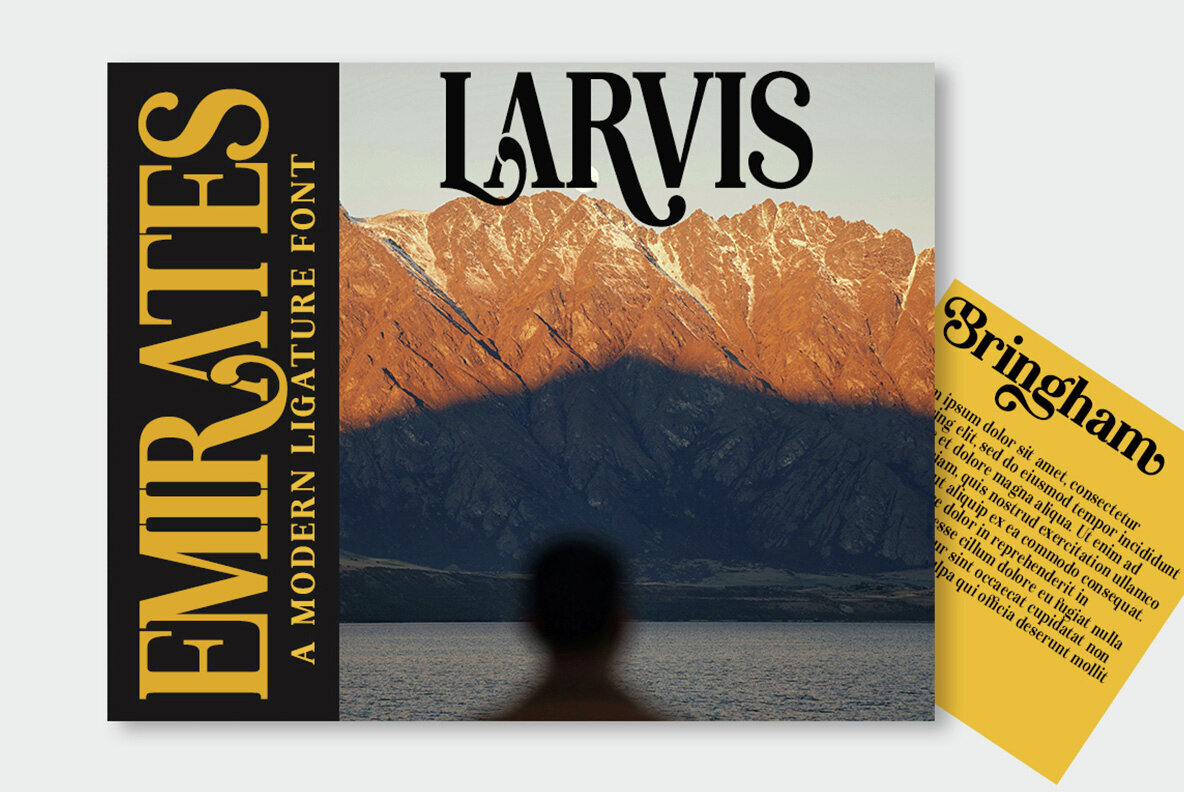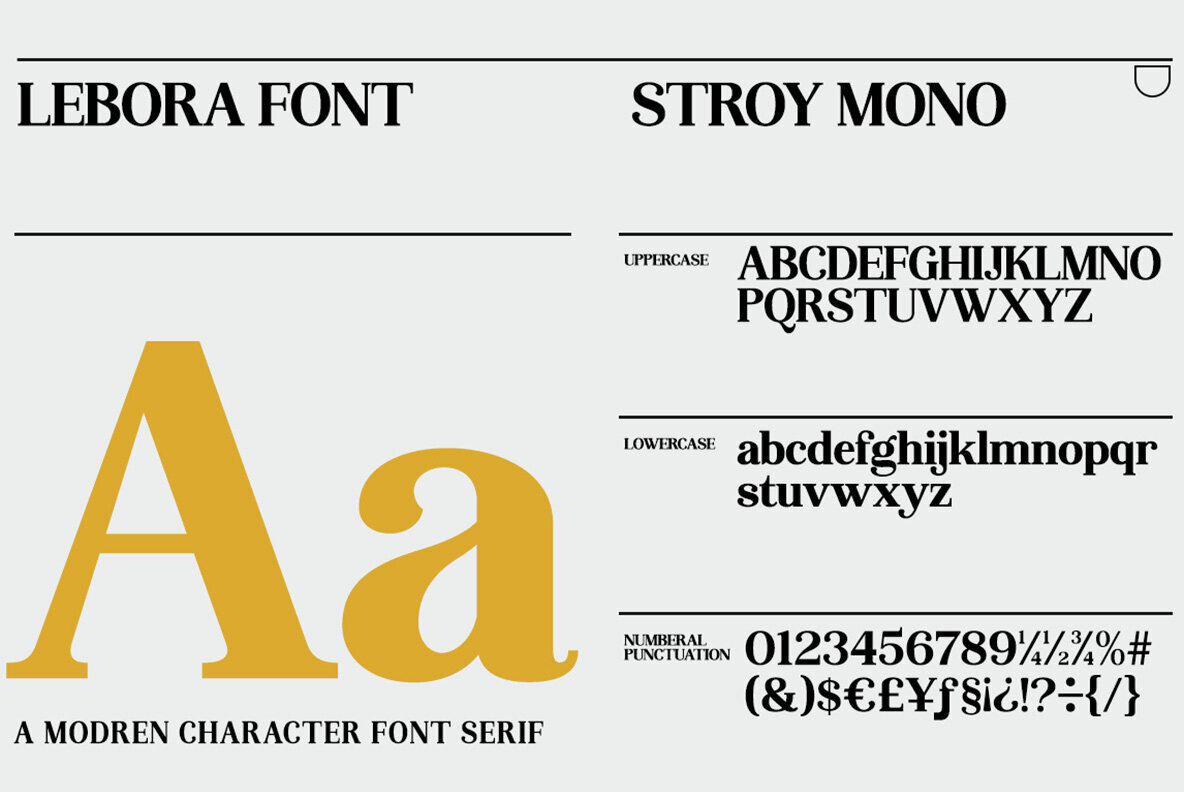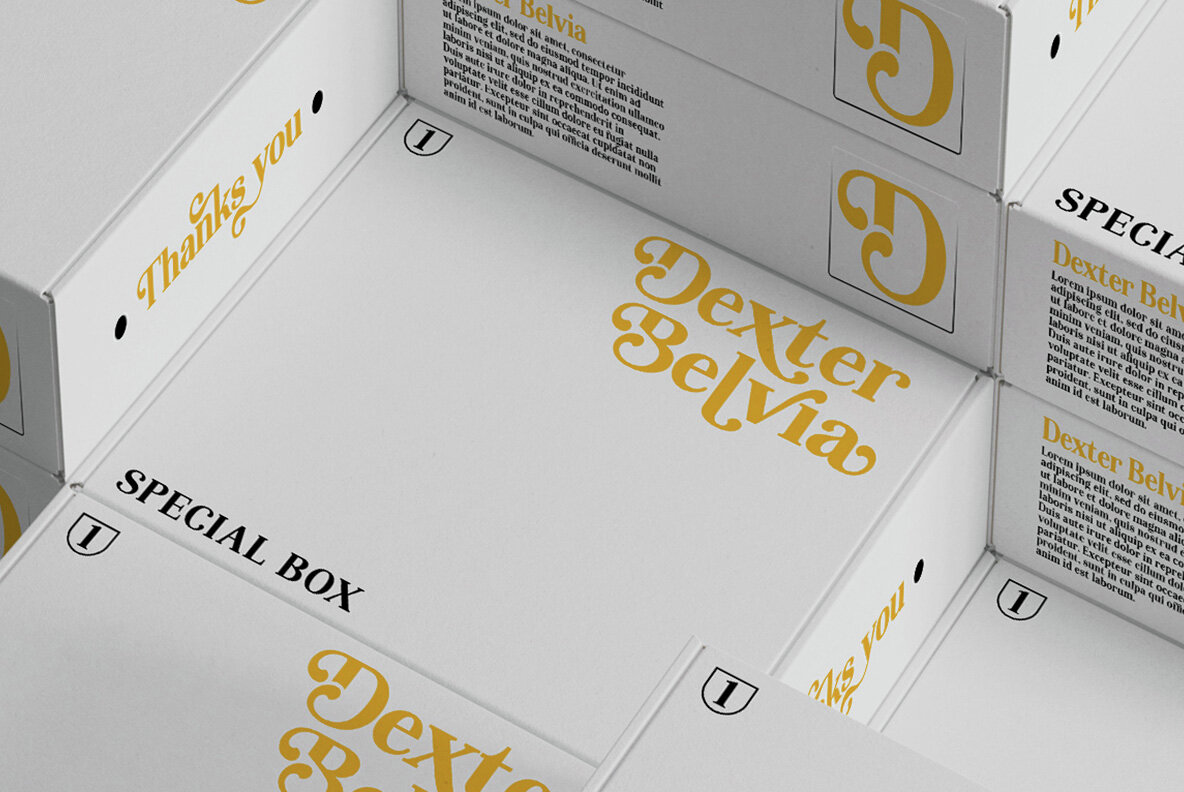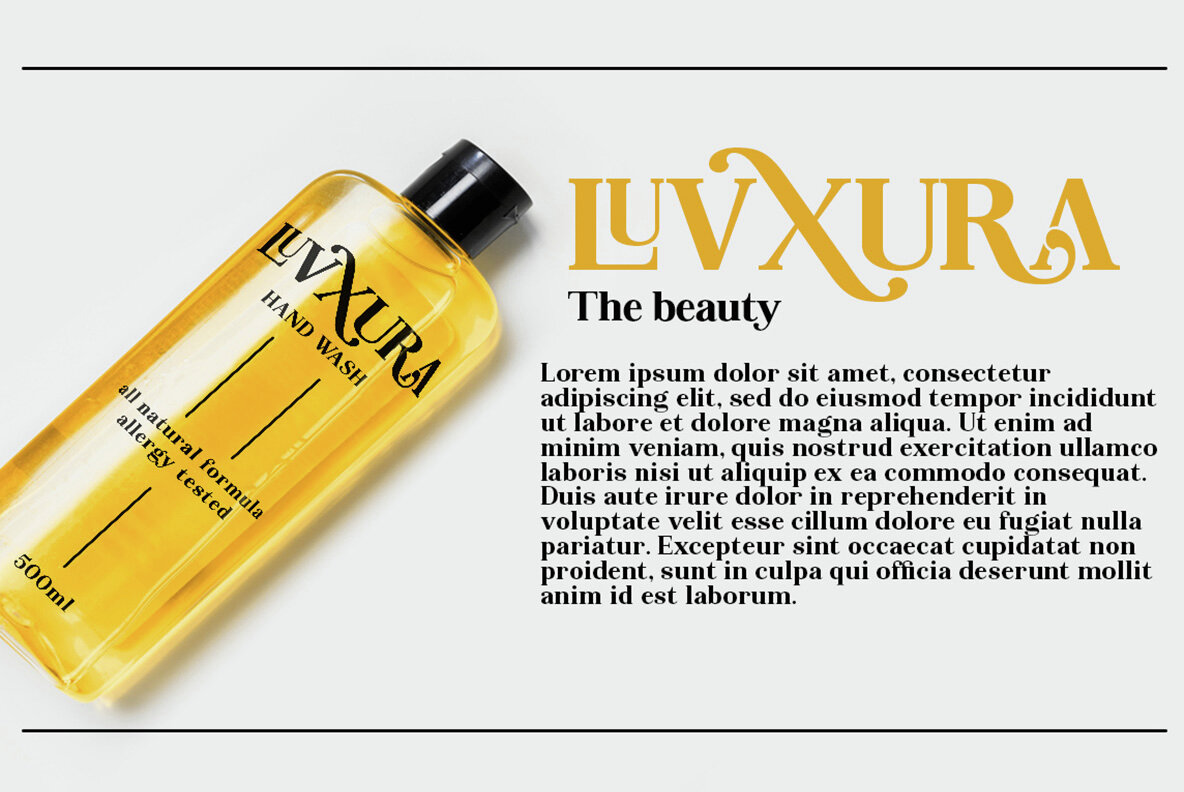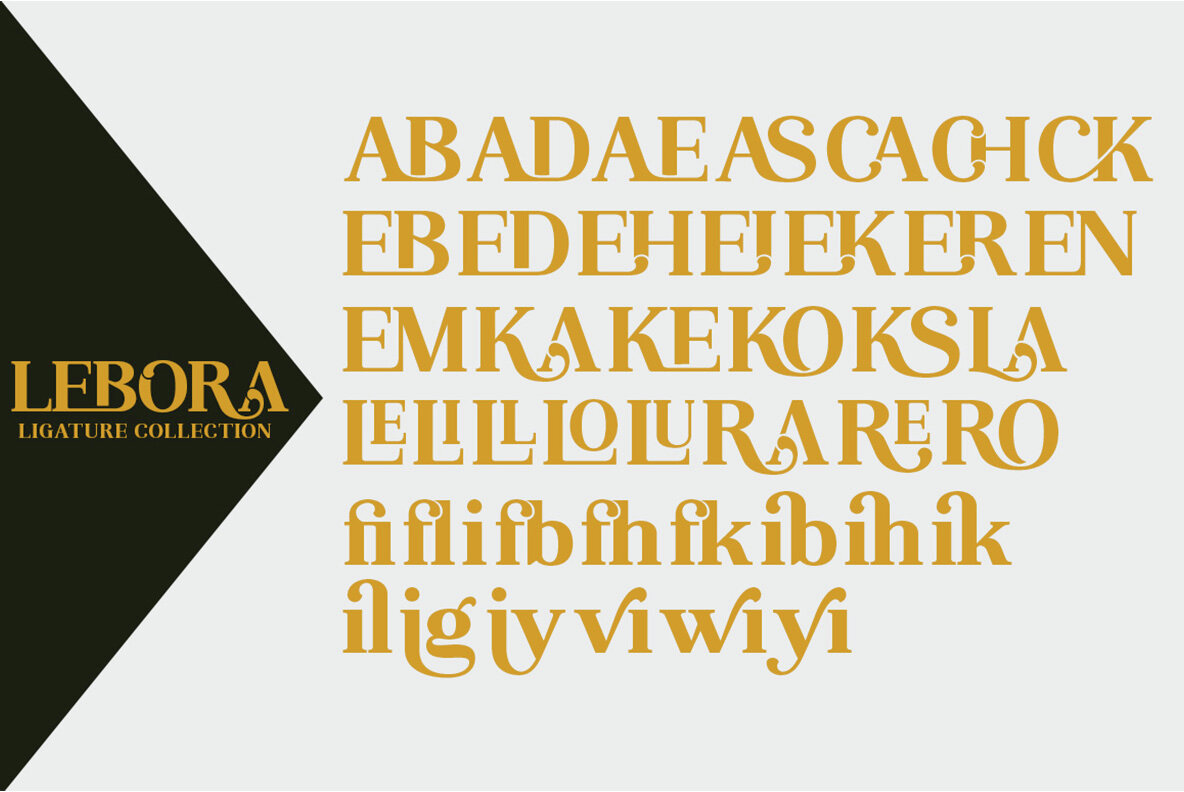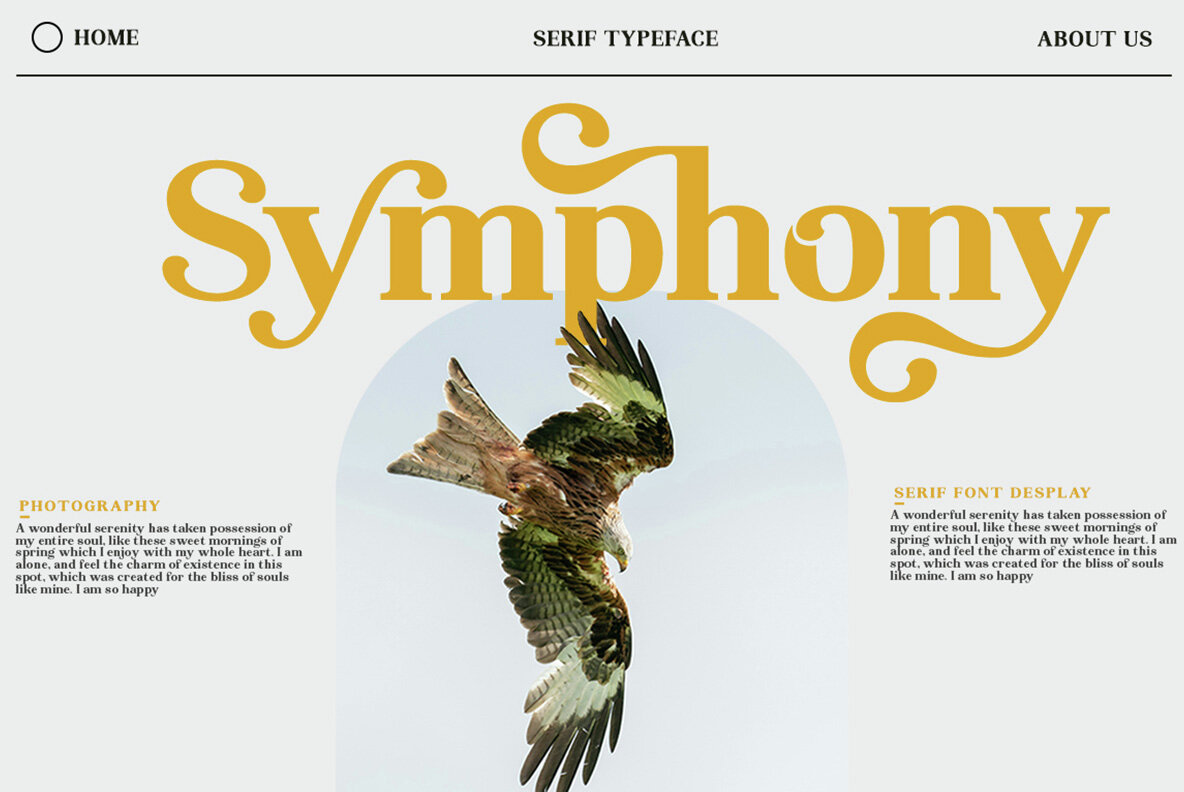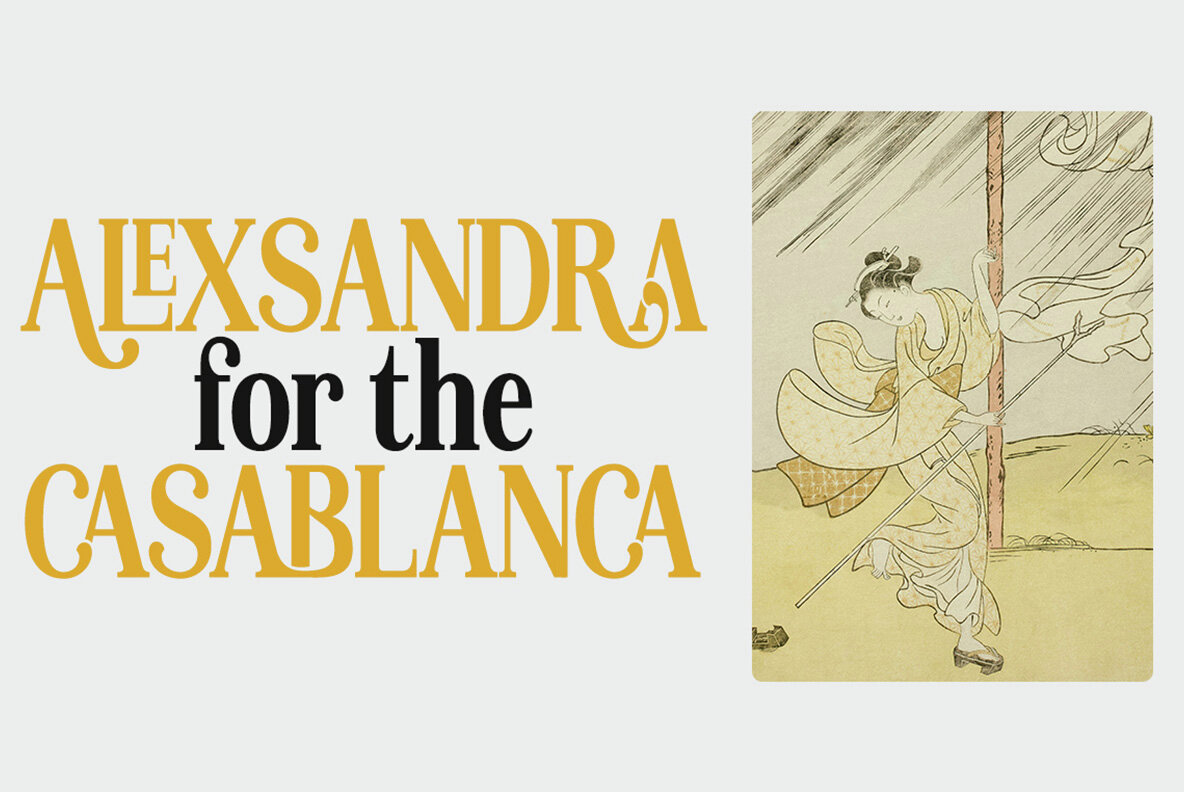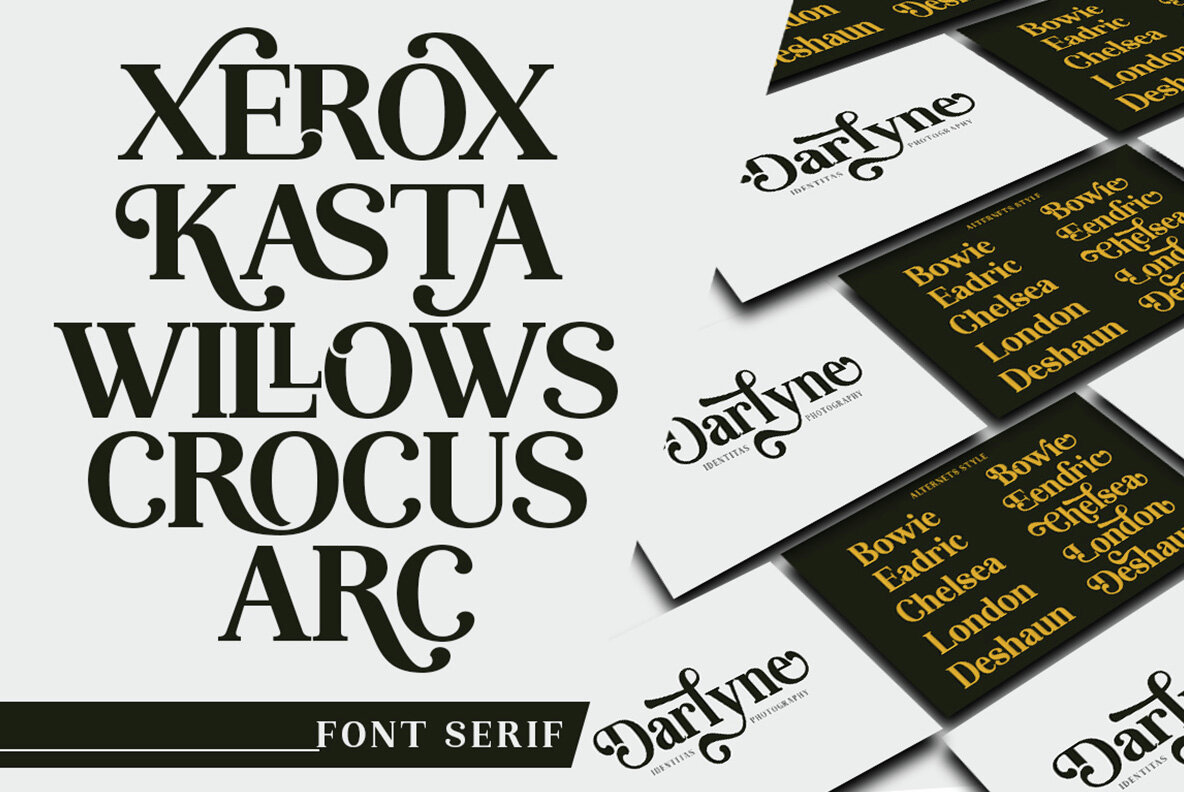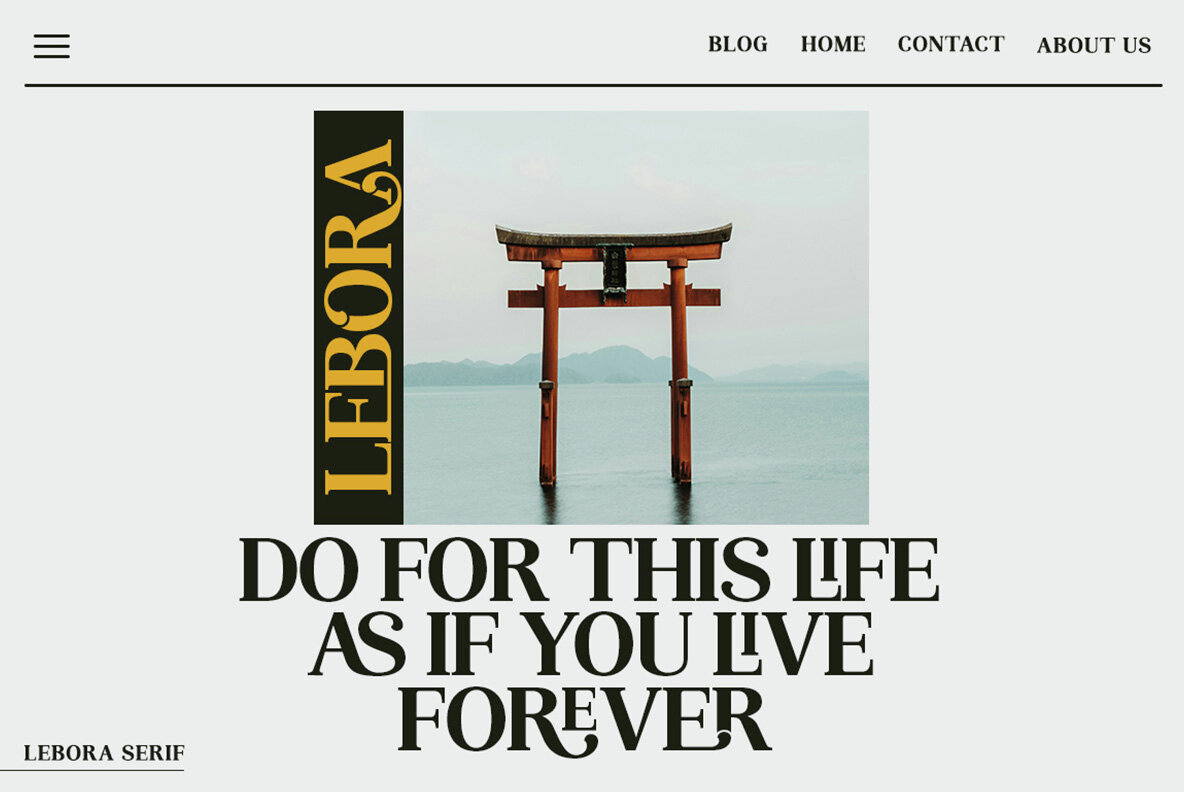
Lebora Font
Lebora is a modern serif font designed with a unique binding style and high contrast, making it ideal for a variety of creative projects. It perfectly suits feminine logo designs, fashion headlines, editorial layouts, branding projects, apparel branding, packaging, magazine titles, advertisements, T-shirts, and postcards. Its high-contrast and light characteristics add an elegant touch to any design.
This font is PUA encoded, enabling easy access to all glyphs and strokes, and includes comprehensive character sets. You'll find uppercase and lowercase letters, automatic ligatures, multilingual characters, numbers, and punctuation marks. Lebora's versatility ensures it meets the needs of contemporary design requirements with sophistication and ease.